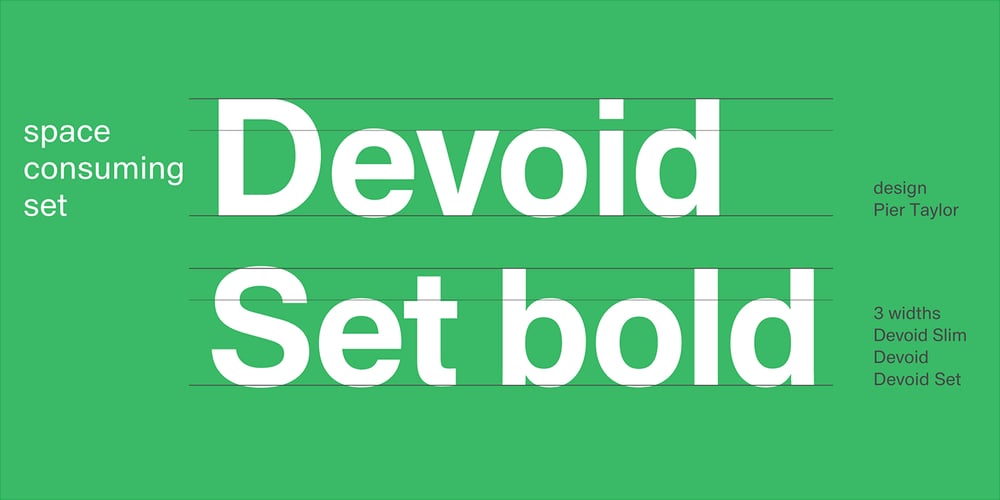
Devoid
Devoid font
Devoid Font Family was designed by Pier Taylor and published by Dropper. Devoid contains 15 styles and family package options. Devoid is a sans serif typeface with a no frills stripped down design. The design has all the features of the neo grotesk typeface, horizontally cut endings, modern capitals, oval counters, with a bare bones appearance. The typeface comes in three subtle widths, Devoid Slim, which is spaced most narrowly, Devoid and Devoid Set, which have a wider letterspacing. There are regular, medium and bold weights with accompanying italics. The vertical metrics align across weights and widths, this allows for optical size adjustment as well as adjusting for same size text fit. Dutch designer Pier Taylor designed the typeface in 2020 for use in catalogs, lists and registers.